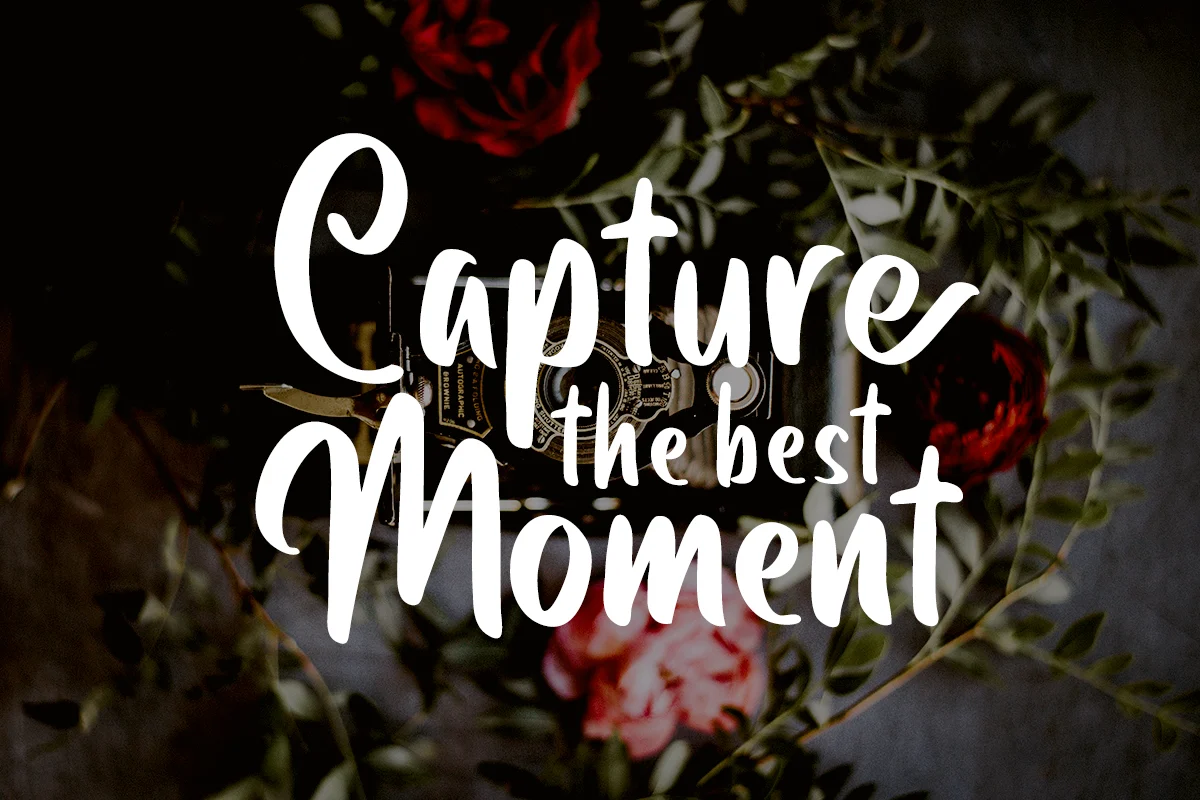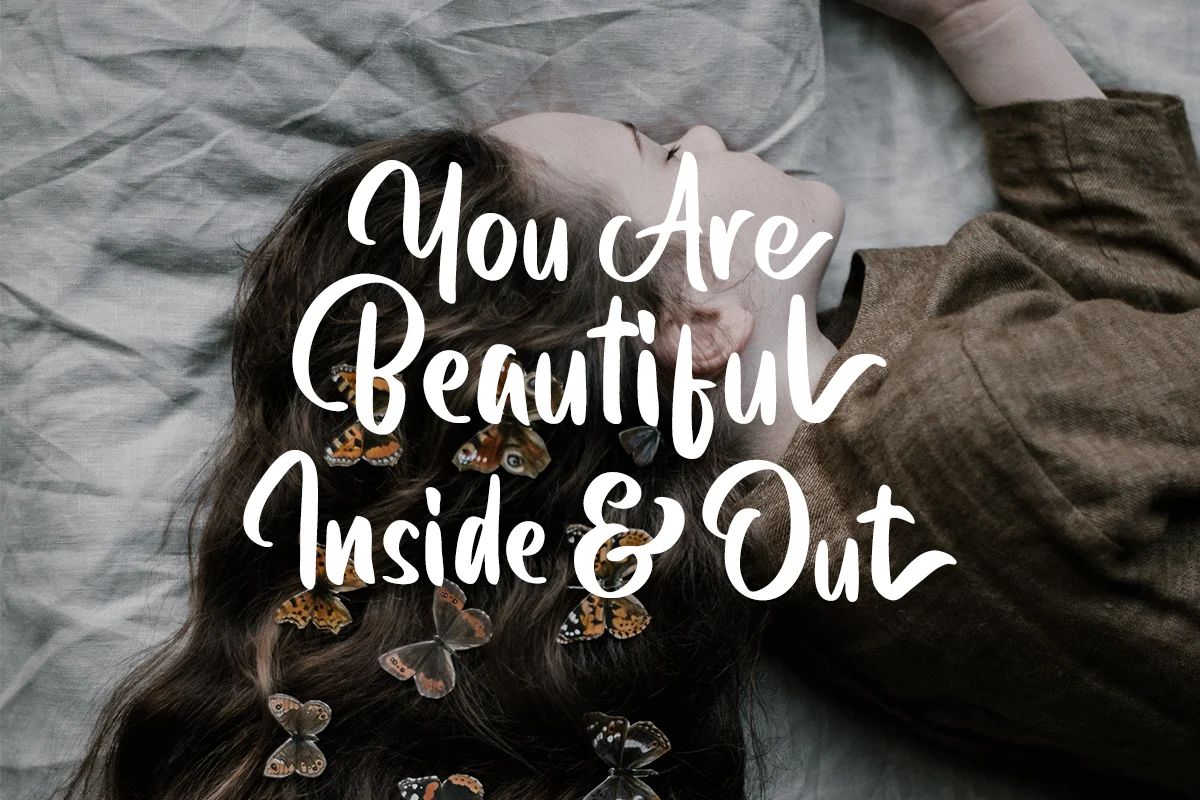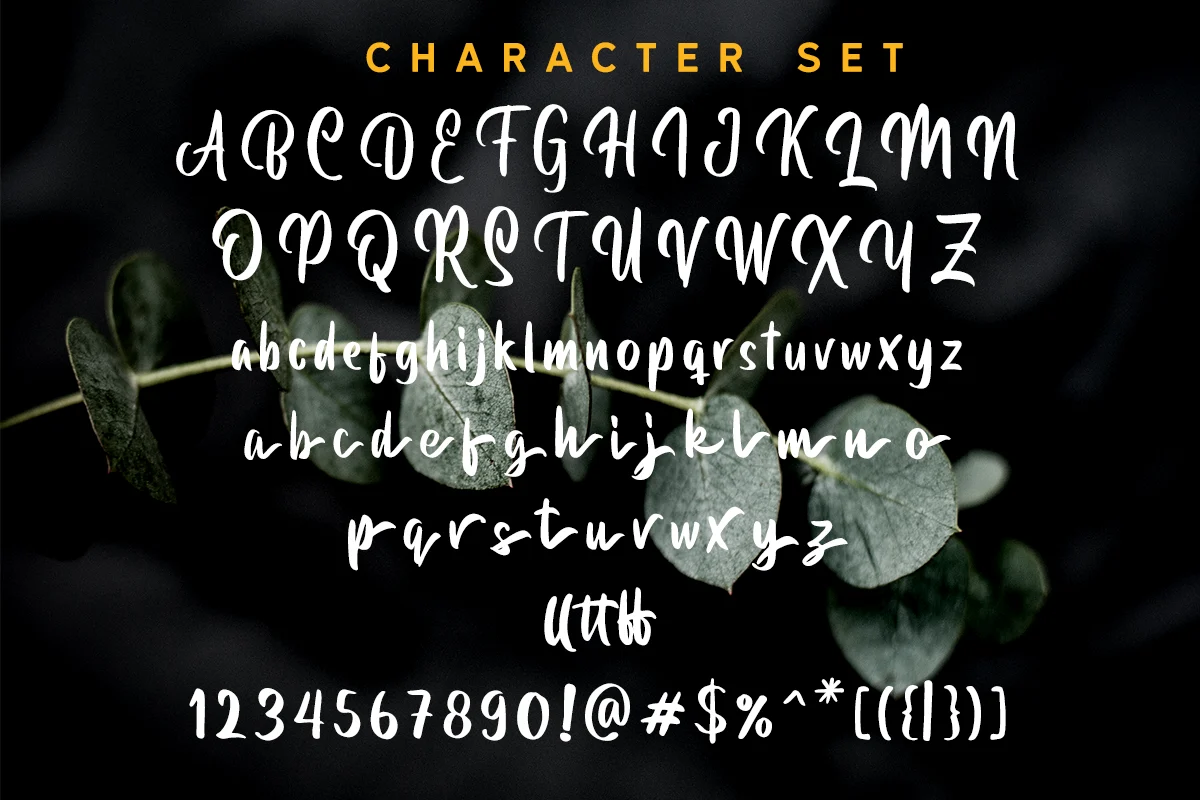
Buttoni Typeface Font
Buttoni is a playful font that you can use for many things. Perfect for quote or anything you want. This font also including number, symbol, and support multi language. Also comes with ligatures and alternates!